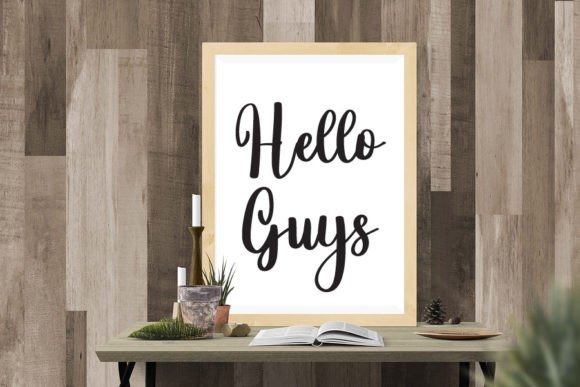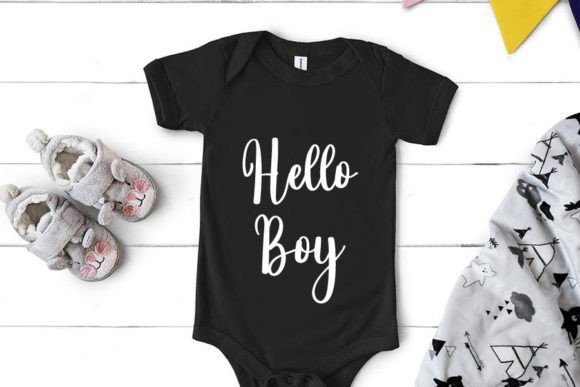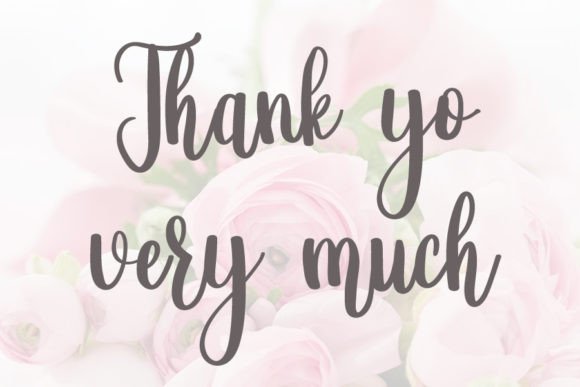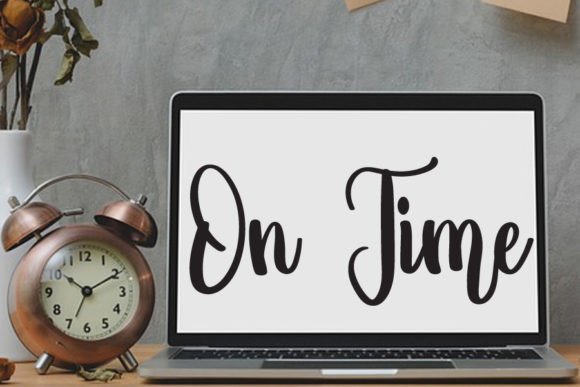
Almost Font
**”Almost”** is a fresh and beautiful font that offers a versatile and appealing option for various design purposes. This font’s simplicity and uniqueness make it a valuable choice for a range of creative projects, and its potential applications include YouTube banners, cover logos, mockups, wedding invitations, ID cards, flyers, crafts, and more. Here are some key features and potential uses for the “Almost” font:
1. **Fresh and Beautiful:** “Almost” brings a fresh and beautiful aesthetic to your designs, making it suitable for projects that require an appealing and contemporary look.
2. **Versatile Application:** This font can be used across a variety of design contexts, including digital platforms like YouTube banners and logos, as well as print materials such as wedding invitations, ID cards, flyers, and crafts.
3. **Progressive Business:** Incorporating “Almost” into your branding and marketing materials can contribute to the progress and development of your business by creating a visually engaging and unique identity.
4. **Simple and Unique:** The font’s simplicity and uniqueness set it apart, allowing you to create designs that are both straightforward and distinctive.
In summary, **”Almost”** is a font that offers a fresh and versatile option for designers and individuals looking to enhance the visual appeal of their projects. Its simplicity and uniqueness make it well-suited for a range of design purposes, while its contemporary aesthetic can help businesses establish a progressive and engaging brand presence.